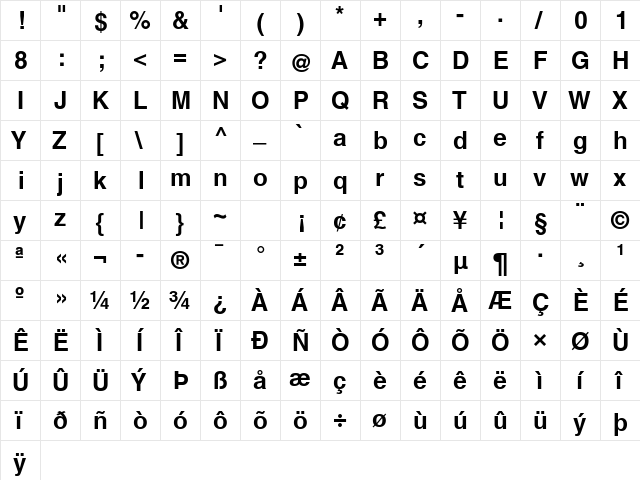
Helvetica World Bold
| Foundry | Linotype GmbH |
| Designer | Linotype Design Studio |
Design Context for Helvetica World Typeface
Helvetica World offers clean, dependable letterforms without strong stylistic allegiance, making it a practical choice for designers who need flexibility. Its bold stroke weight gives it real presence on the page.